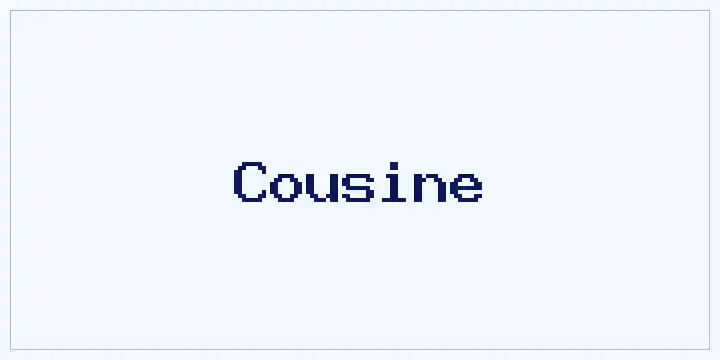
Cousine
Cousine is credited in the verified font metadata to Steve Matteson. This catalogue record was prepared from the official source rather than from an anonymous download mirror.